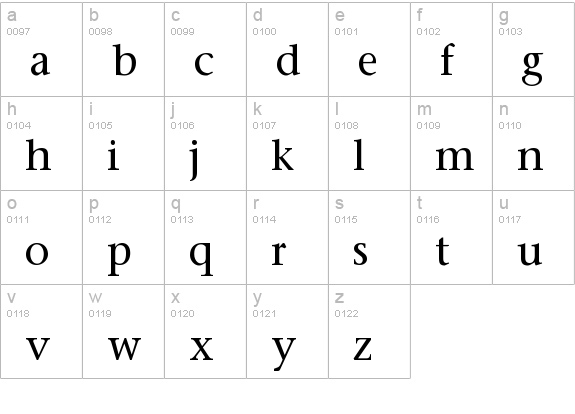
Stone Font Details
Introducing Stone font, a versatile and modern typeface that exudes elegance and sophistication. With its clean lines and timeless appeal, Stone font is perfect for a wide range of design projects, from branding to editorial layouts. This unique font combines classic elements with a contemporary twist, making it a standout choice for designers looking to make a statement. What's even better is that Stone font is available for free download at FontsMarket.com. So whether you're working on a personal project or a professional assignment, you can easily access this stunning font without breaking the bank. Don't miss out on the opportunity to elevate your designs with the exquisite Stone font - download it today and let your creativity soar!